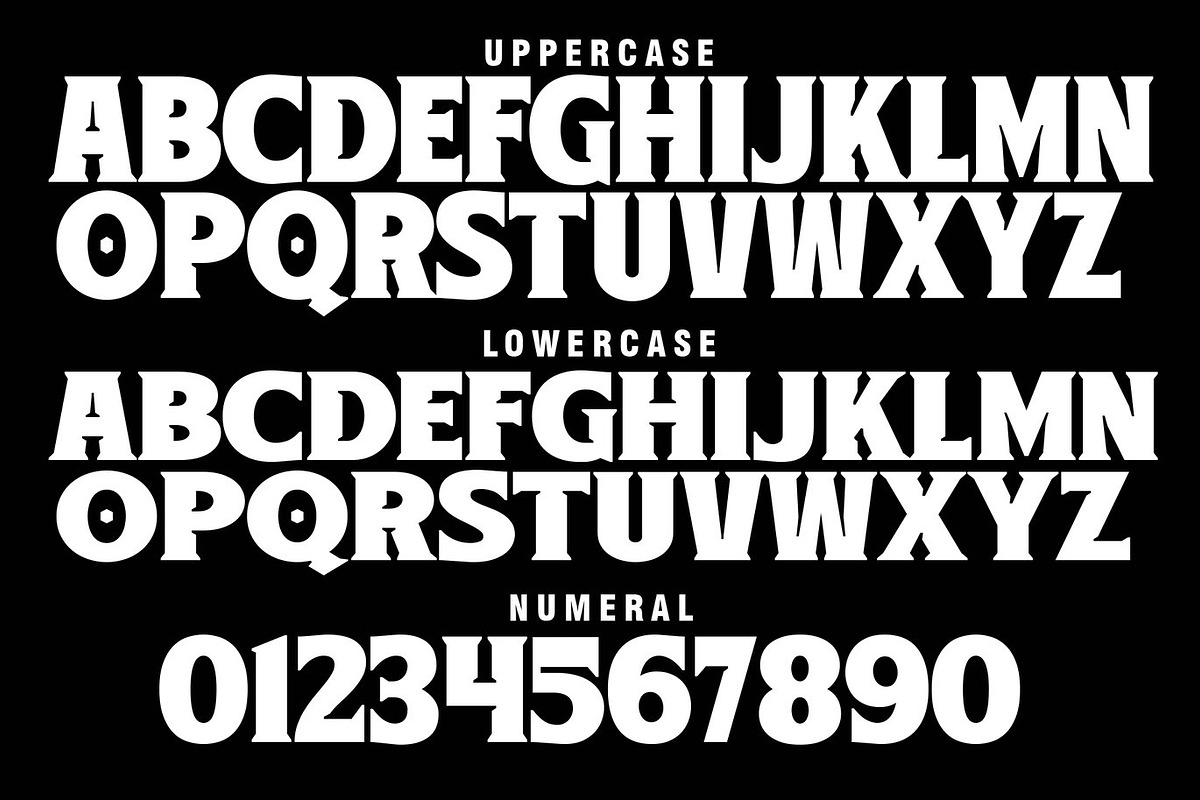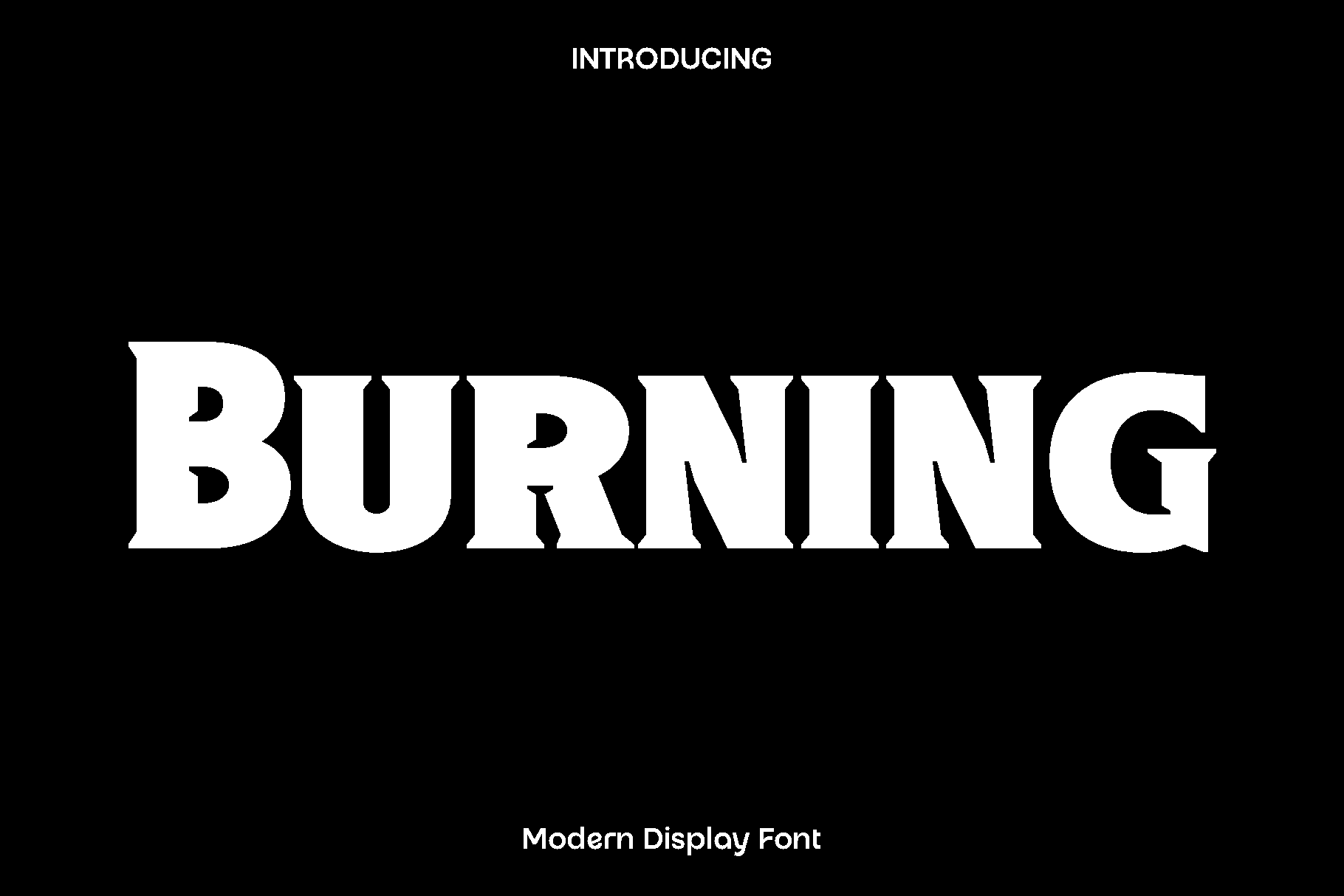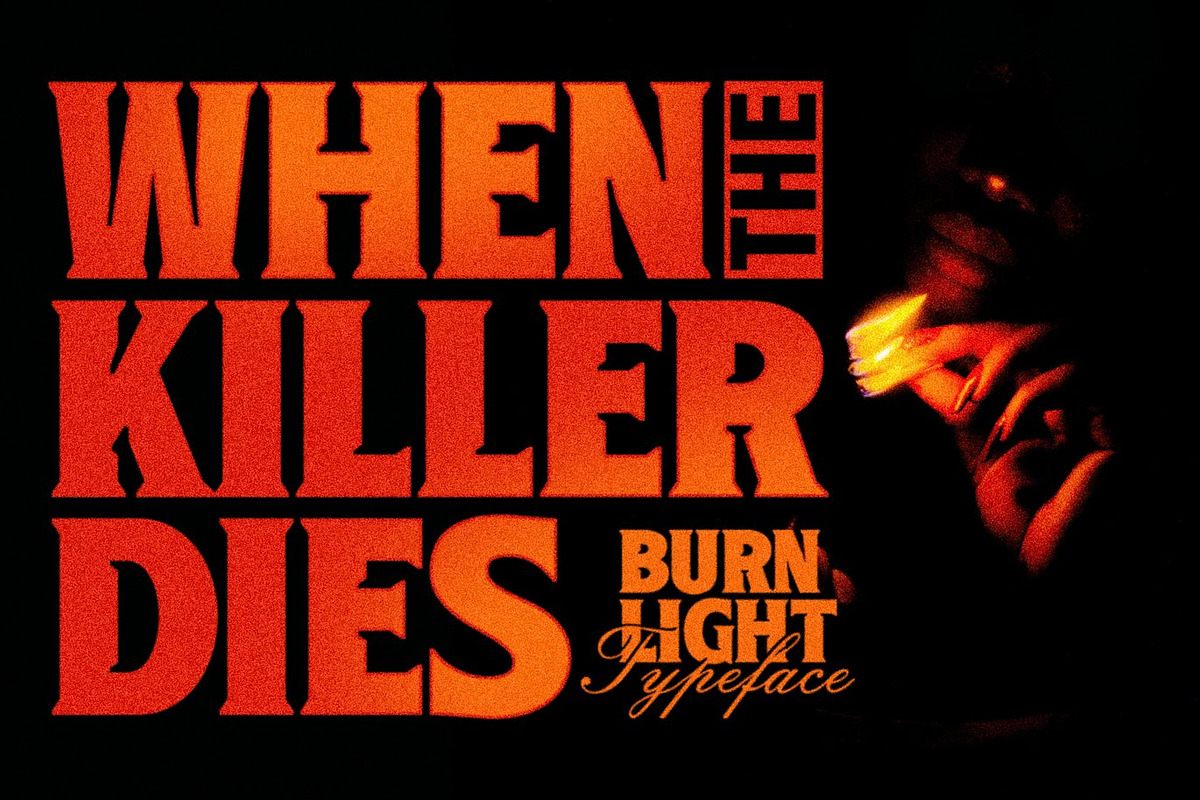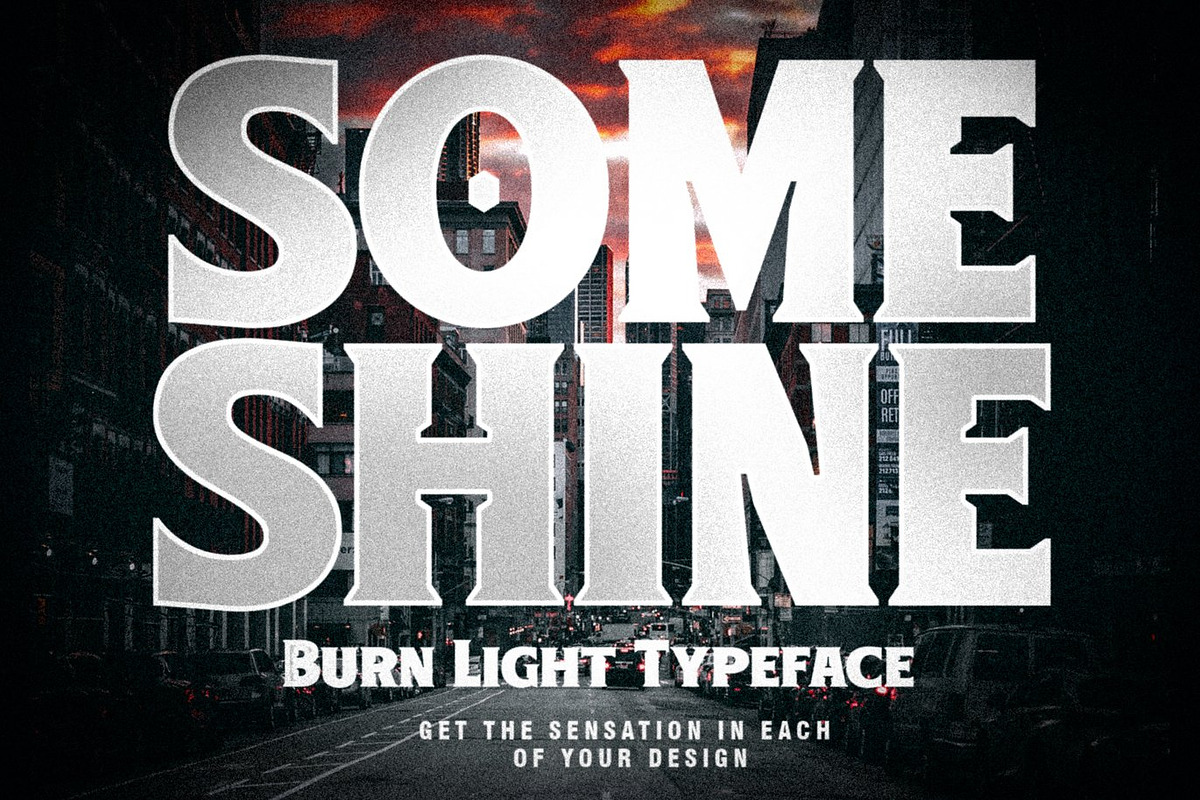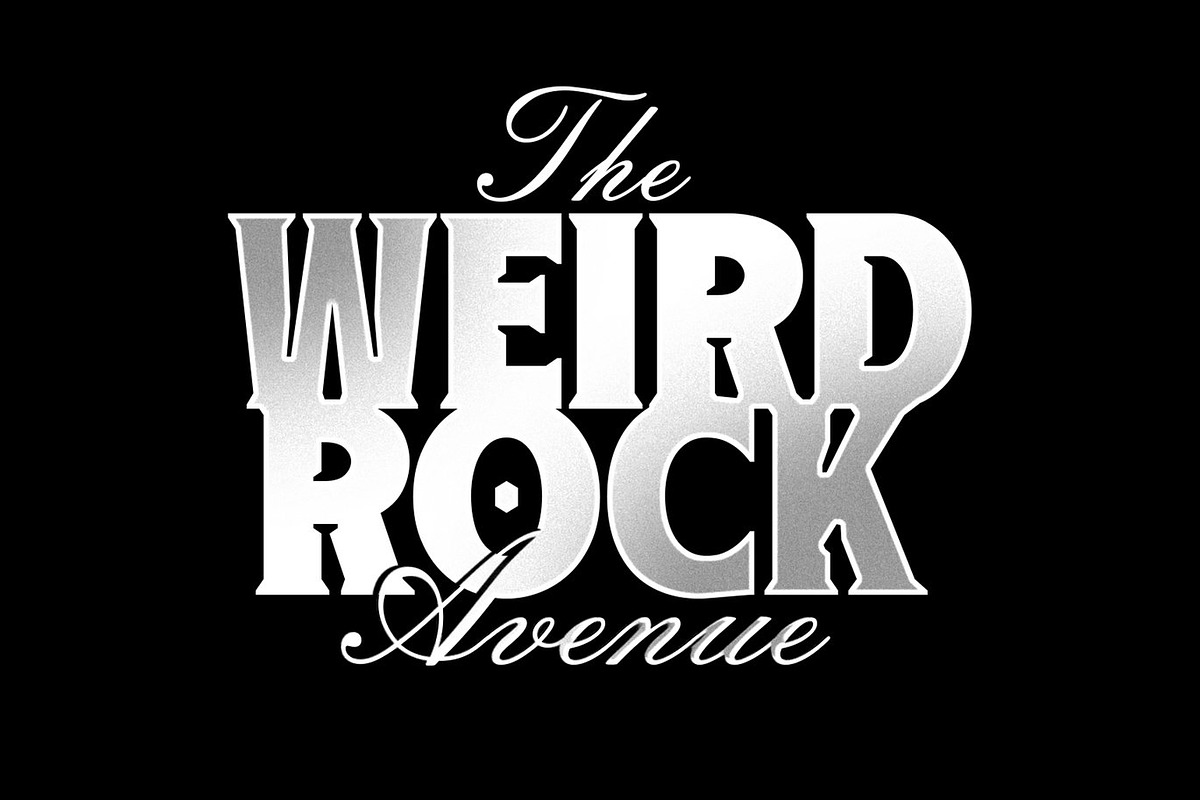
Burning Display Font
Burning is a bold and expressive display font created to bring warmth, energy, and personality into your designs. Inspired by handcrafted lettering and creative expression, Burning carries a lively and artistic feel that instantly draws attention. Its confident letterforms and natural flow give the font a strong visual presence while still feeling playful and approachable.
This font shines in projects that need character and impact. Burning is perfect for branding, Procreate lettering, craft projects, home decor designs, invitations, posters, social media graphics, and creative merchandise. Whether you are designing a logo, a decorative quote, or eye catching promotional content, Burning adds a dynamic and memorable touch that makes your work stand out.
Burning feels creative, bold, and full of life. It is designed for makers, artists, and designers who want their typography to feel expressive and authentic. With its versatile style, it works beautifully in both digital and print applications, giving your designs a handcrafted charm that feels modern and engaging.
Burning Font Features:
• Uppercase and lowercase characters
• Numbers and basic punctuation
• Multilingual support
• Clean and expressive letterforms
• Ideal for branding, crafts, decor, invitations, and creative lettering
Burning is a great choice for anyone looking to add personality, creativity, and visual warmth to their design projects.